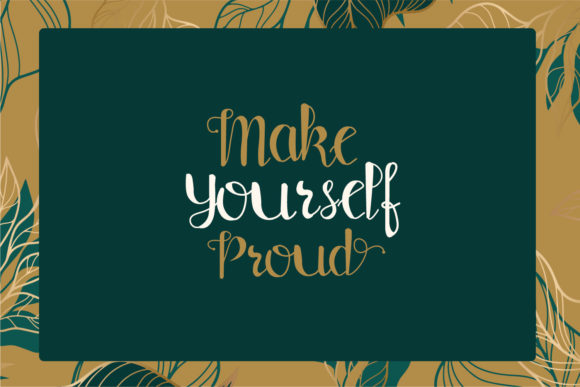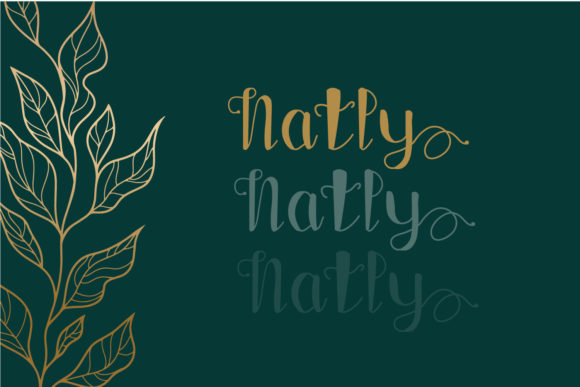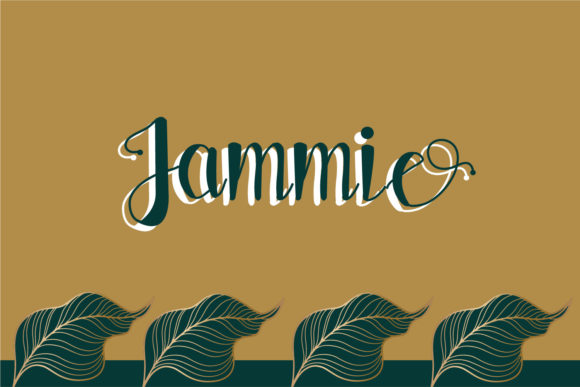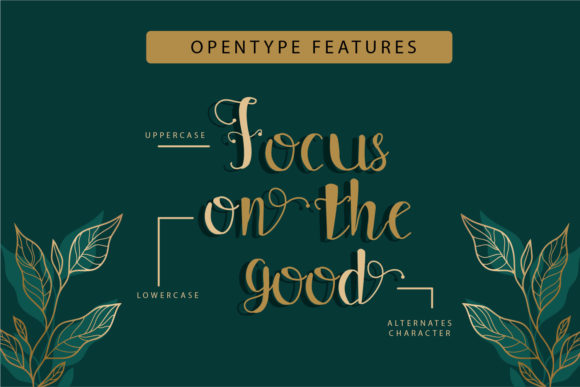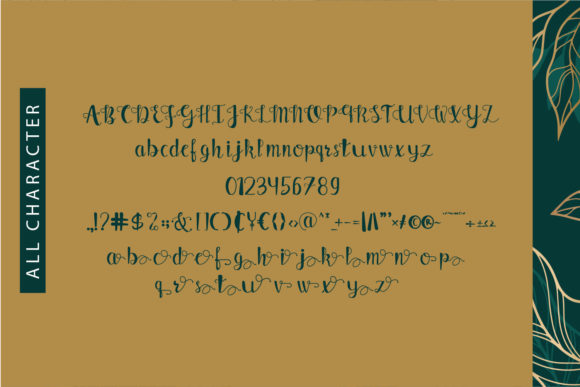
Correo Font
About Correo Font
Correo is a stylish and beautiful script font. It is PUA encoded which means you can access all glyphs and swashes with ease!
Dainty and joyful, this font will be ideal for writing wedding invitations, cards or any other design that may need a romantic, personalized touch!